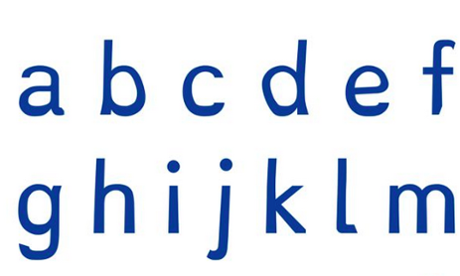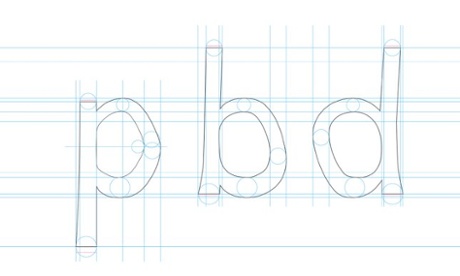
Watching letters float and twist across a page, flipping and jumbling with gymnastic abandon, can be a daily frustration for readers with dyslexia. But the restless characters might soon be tamed thanks to a new font.
Developed by young Dutch designer Christian Boer, the Dyslexie typeface, currently on show at the Istanbul Design Biennial, has put all 26 letters of the alphabet through a finely-tuned process of adjustment to weigh them down and make it harder for similar letters to be confused.
“When they’re reading, people with dyslexia often unconsciously switch, rotate and mirror letters in their minds,” says Boer, who is dyslexic himself. “Traditional typefaces make this worse, because they base some letter designs on others, inadvertently creating ‘twin letters’ for people with dyslexia.”
To counteract this tendency, Boer has introduced a number of tweaks. First, the letters are weighted towards the bottom, as if the bulk of each character’s body has slumped downwards under accelerated gravitational pressure. This sets a heavy baseline, which makes it harder for the letters to be flipped upside down – and gives the font the look of a chubby-ankled cousin of Comic Sans.
This lowered centre of gravity is joined by specific alterations to differentiate similar letters. In many fonts, the d is the same as a b is the same as a p is the same as a q – a simple hoop on a stick, variously mirrored and rotated to form four different characters. Boer’s typeface distorts each letter, slanting the extenders and descenders and enlarging the openings to make them harder to confuse, in a process of careful anatomical refinement.
Other similar looking letters are given different heights and their proportions slightly deformed. The valleys of the v, w and y are all set at subtly different levels, while the c is prised open more than usual to make it less similar to an o. Elsewhere, tails are lengthened and the space between letters is increased to counteract the common crowding effect, while capital letters and punctuation are bolded, making it easier to spot where one sentence ends and a new one begins.
Boer first developed the typeface for his final thesis project at the Utrecht Academy of Art back in 2008, and it has since been put through its paces by researchers at the University of Amsterdam and the University of Twente. Their studies found that 84% of readers could read text in the Dyslexie font faster than a standard typeface, while 77% reported fewer mistakes. The font was presented at a TED talk in 2011, and other similar typefaces have sprung up since – from OpenDyslexic to Spellex DysLex.